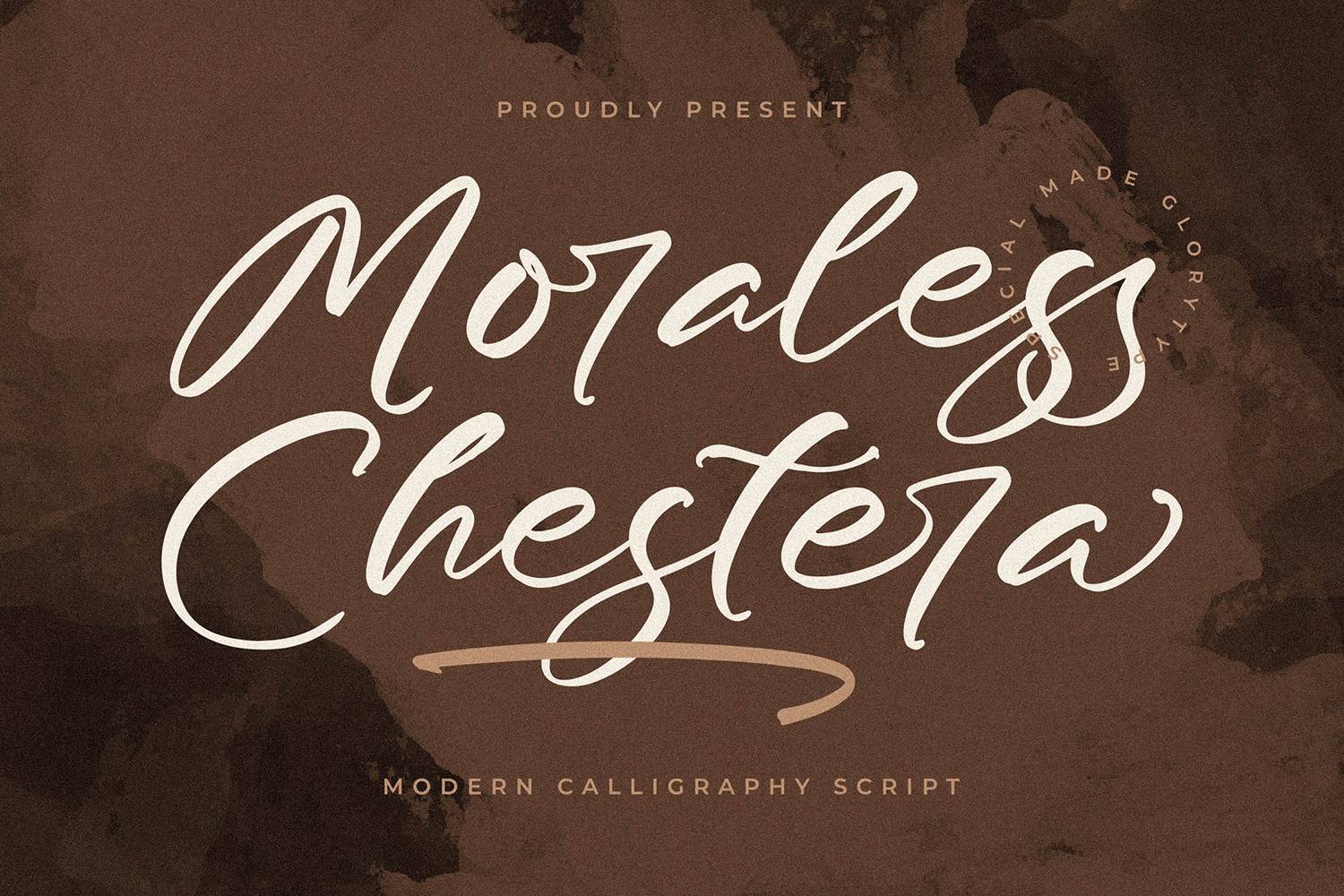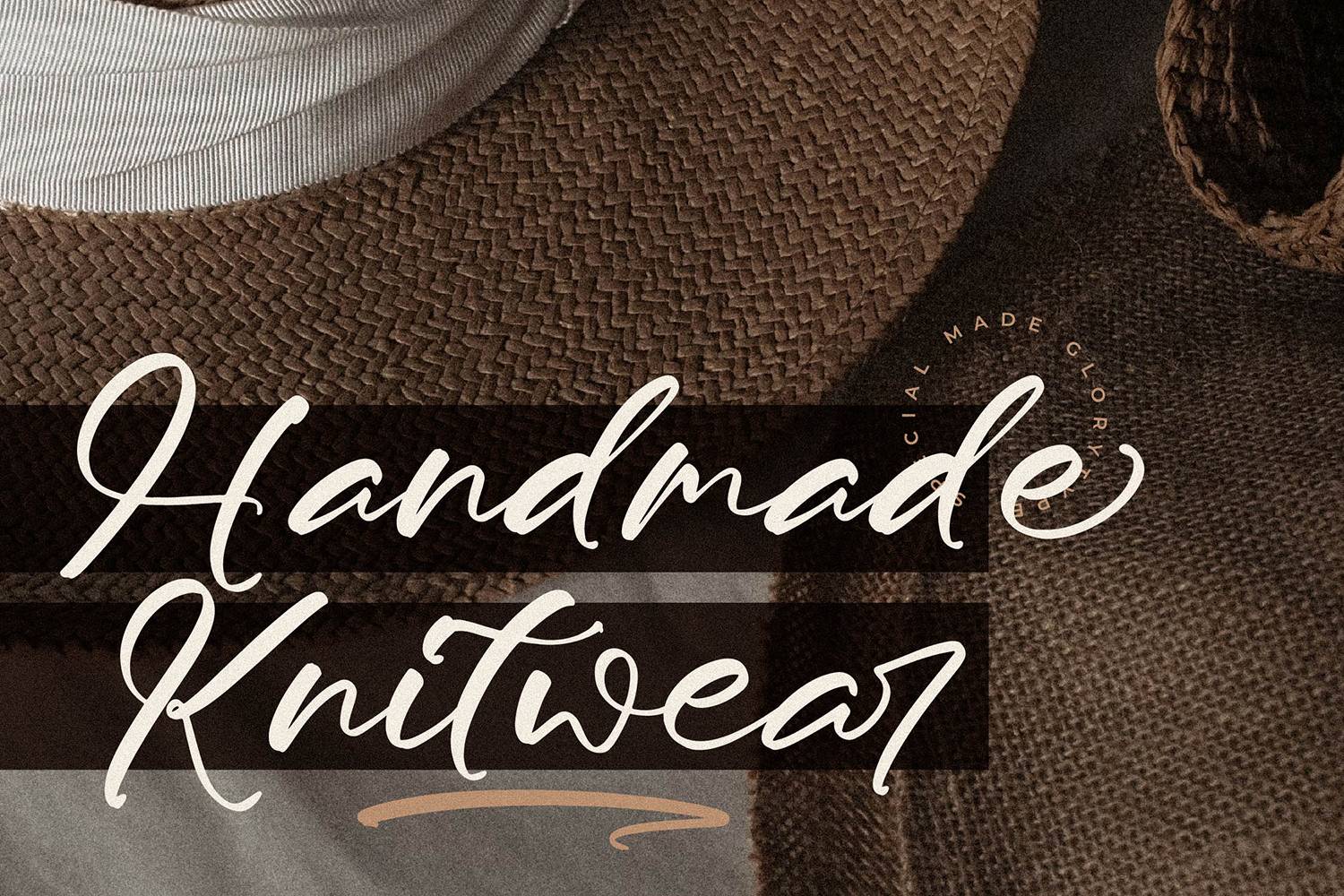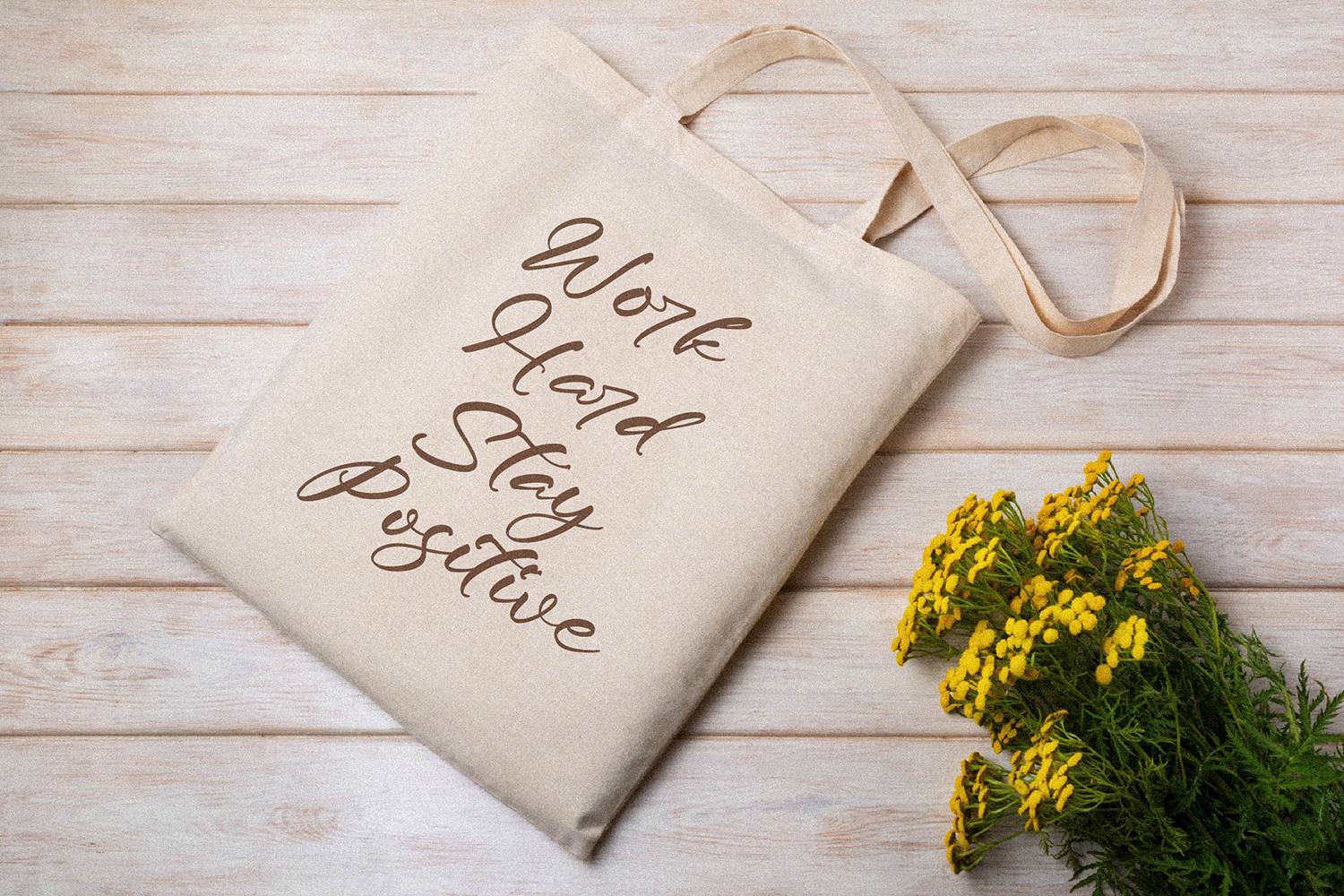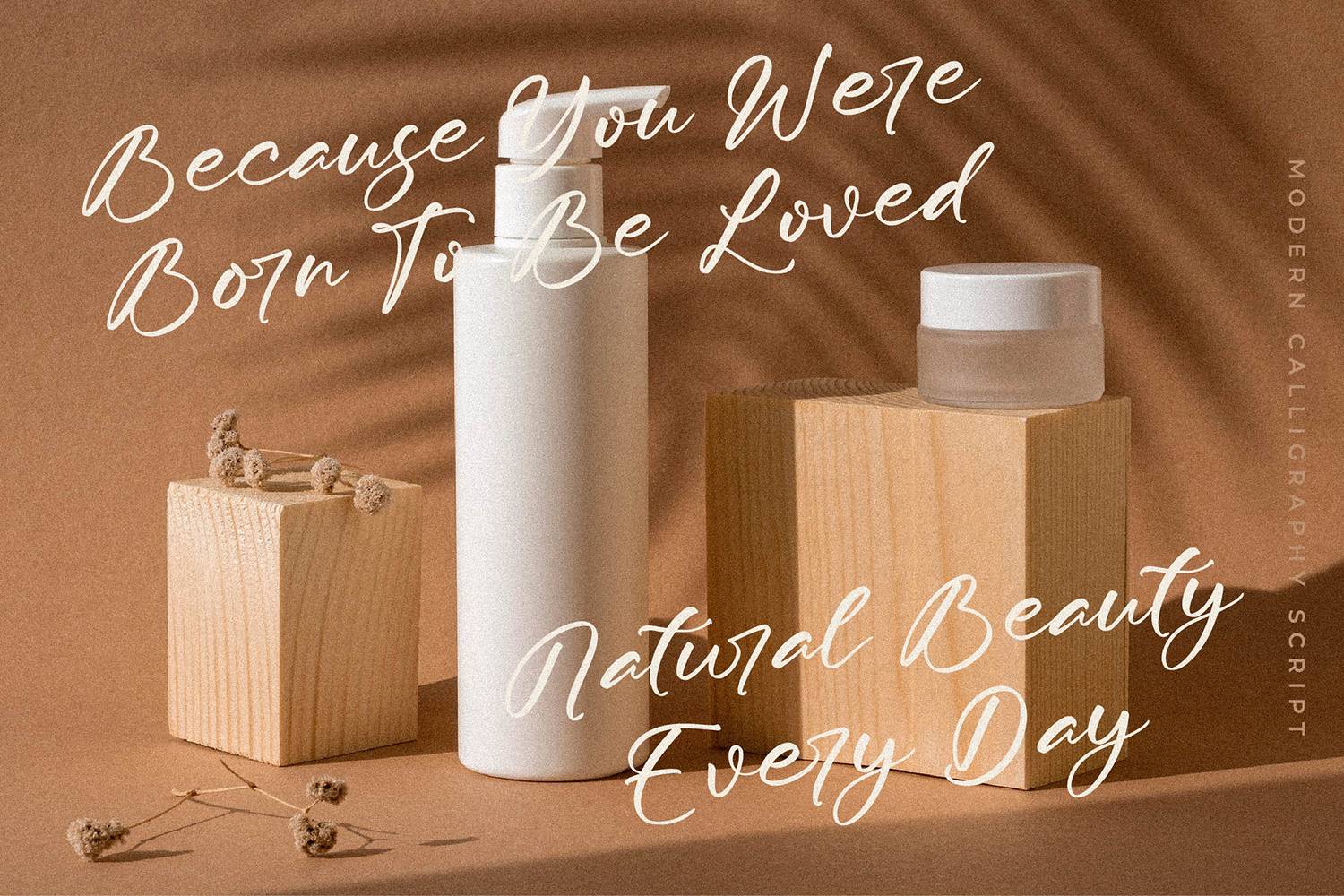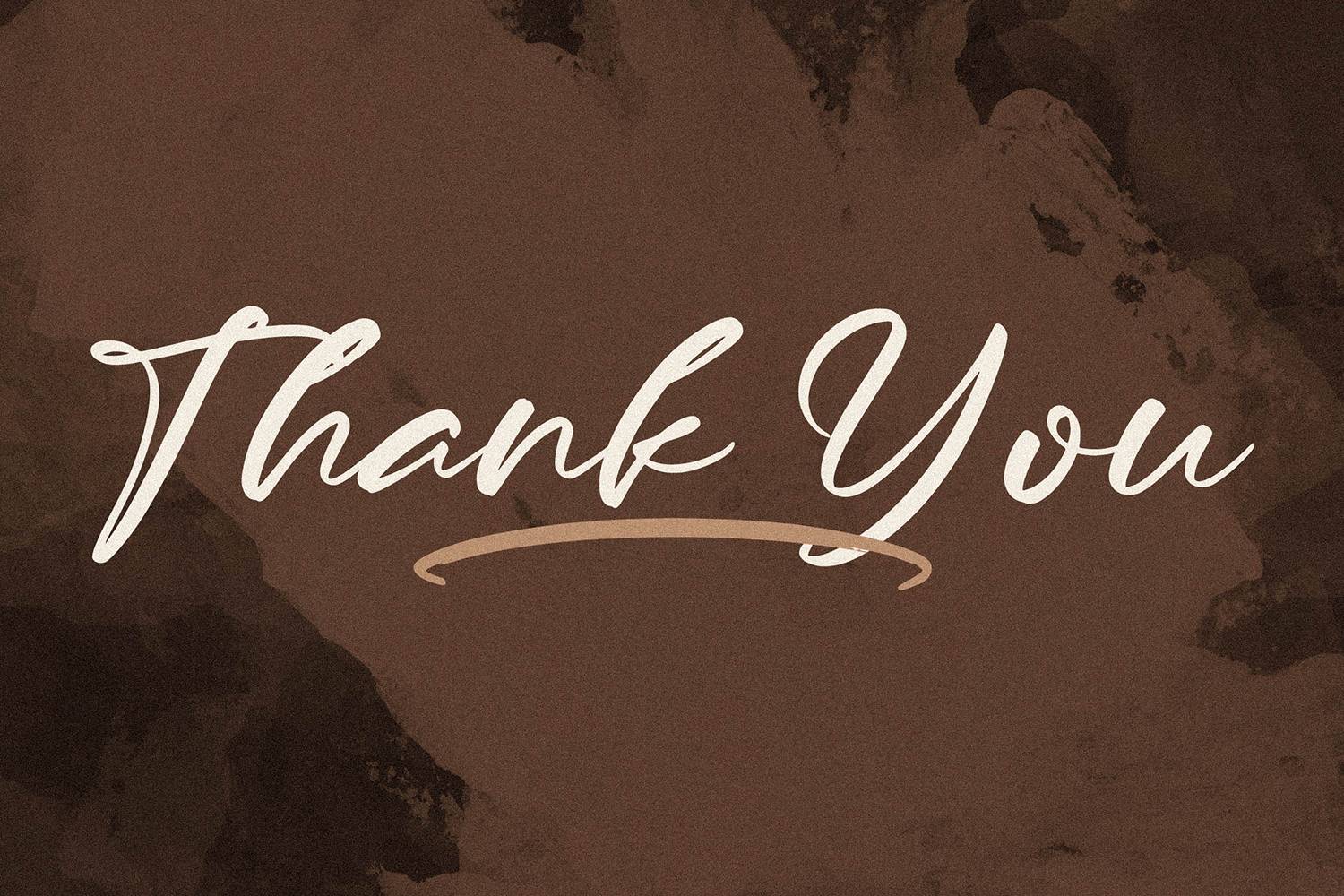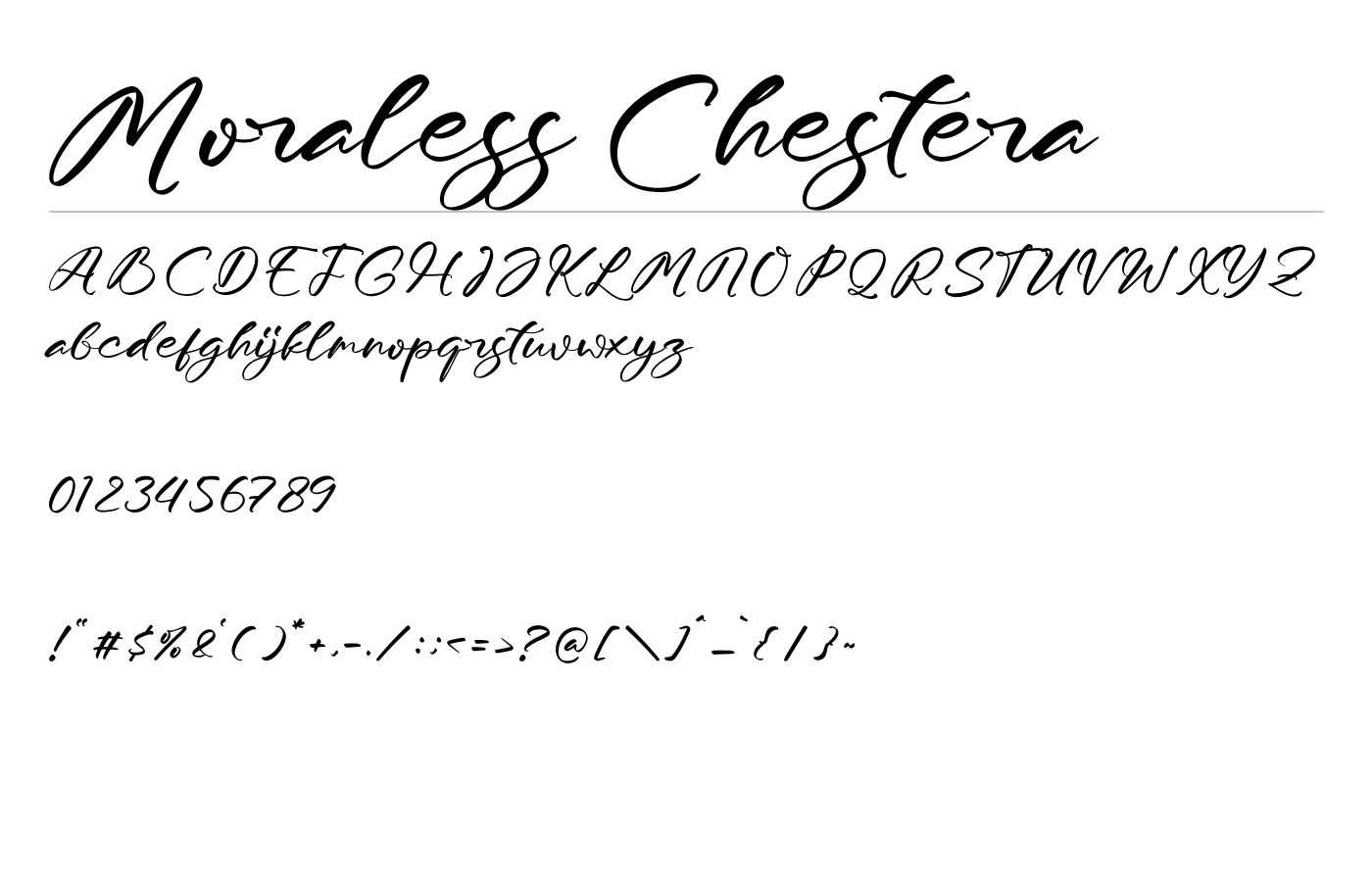
Moraless Chestera is a graceful script font with flowing, elegant strokes that evoke a handwritten, calligraphic feel. Its slender, slightly varied letterforms and cursive connections make it perfect for adding a personal, sophisticated touch to invitations, branding, and stylish editorial projects. This font works beautifully in designs that seek to convey warmth, creativity, and refined charm.
Moraless Chestera Font
About Moraless Chestera Font